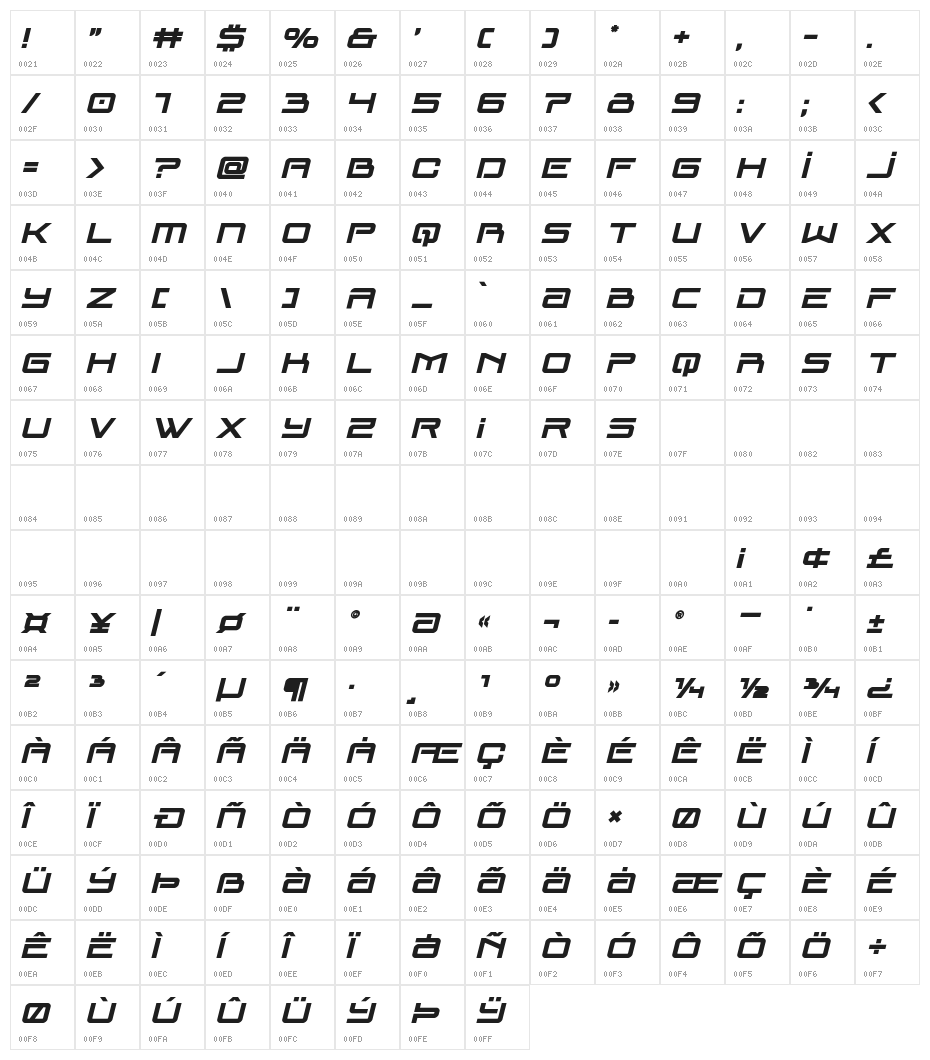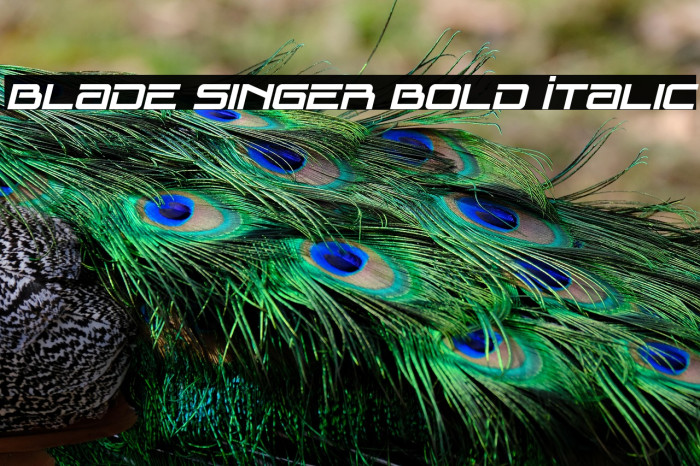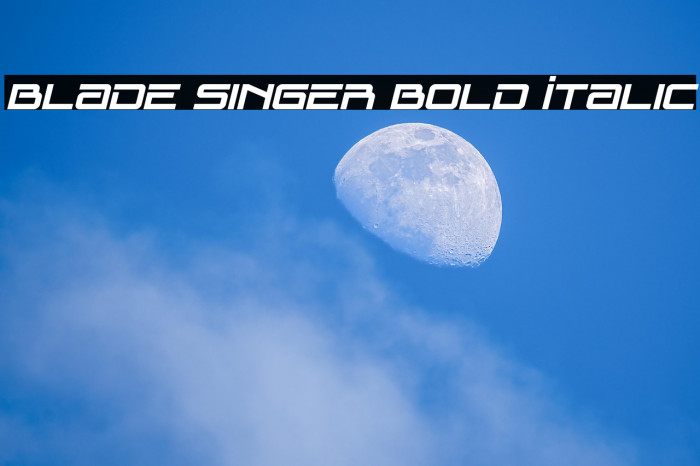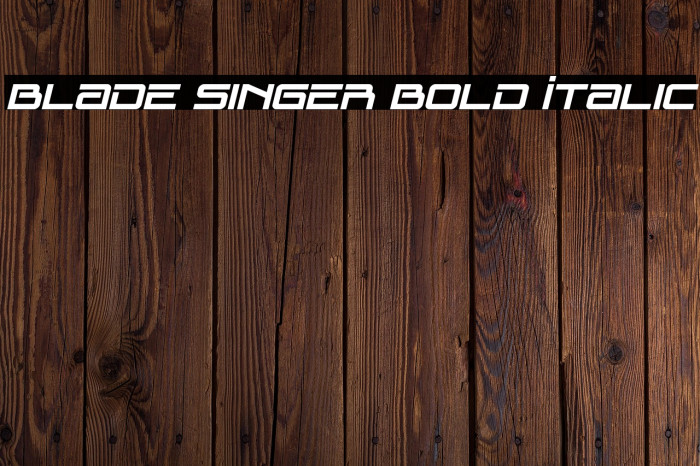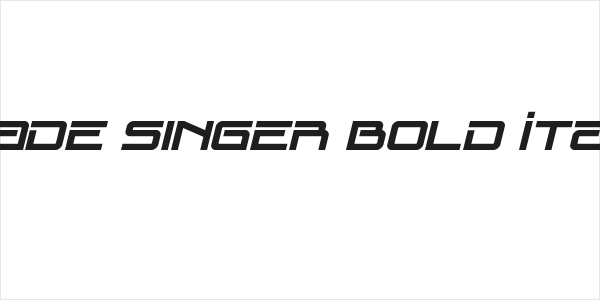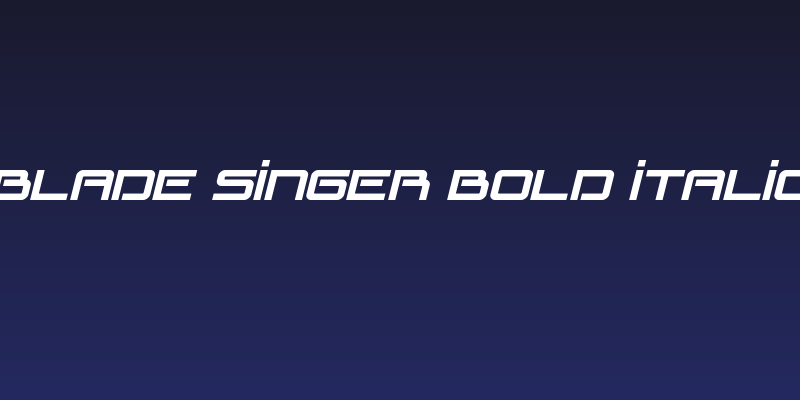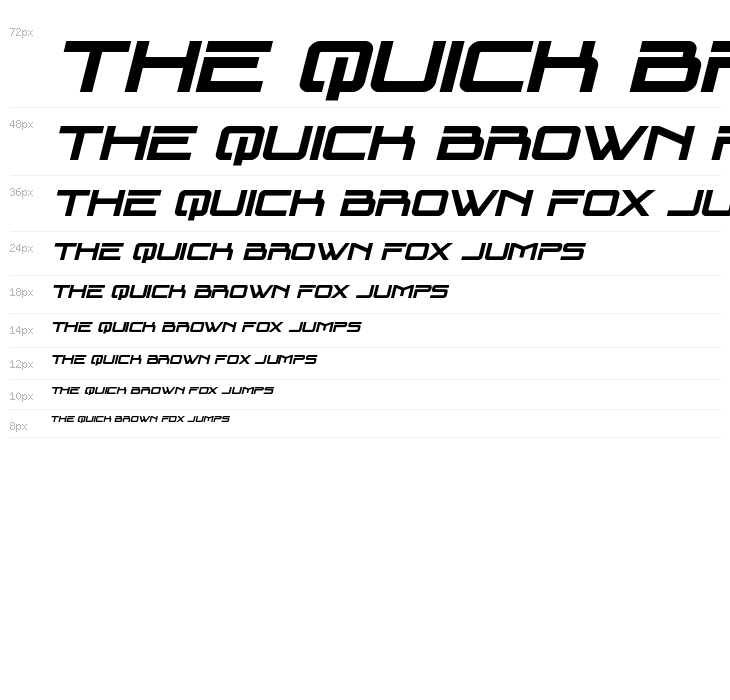
Blade Singer Bold Italic Font
Blade Singer Bold Italic Description
This font features a bold and italicized style with a futuristic and angular design. The characters are slightly slanted, giving a dynamic and forward-moving appearance. The strokes are thick and consistent, with sharp edges and a geometric structure. The uppercase and lowercase letters maintain a uniform height, enhancing readability while preserving a unique aesthetic. The numbers and special characters follow the same design principles, ensuring a cohesive look across all glyphs. This font is ideal for projects that require a modern and edgy feel, such as technology branding, sports team logos, or sci-fi themed designs.
| Use Case | Logos, Headlines, Branding |
| Proposed Projects | Ideal for technology branding, sports team logos, sci-fi themed designs, and modern advertising. |